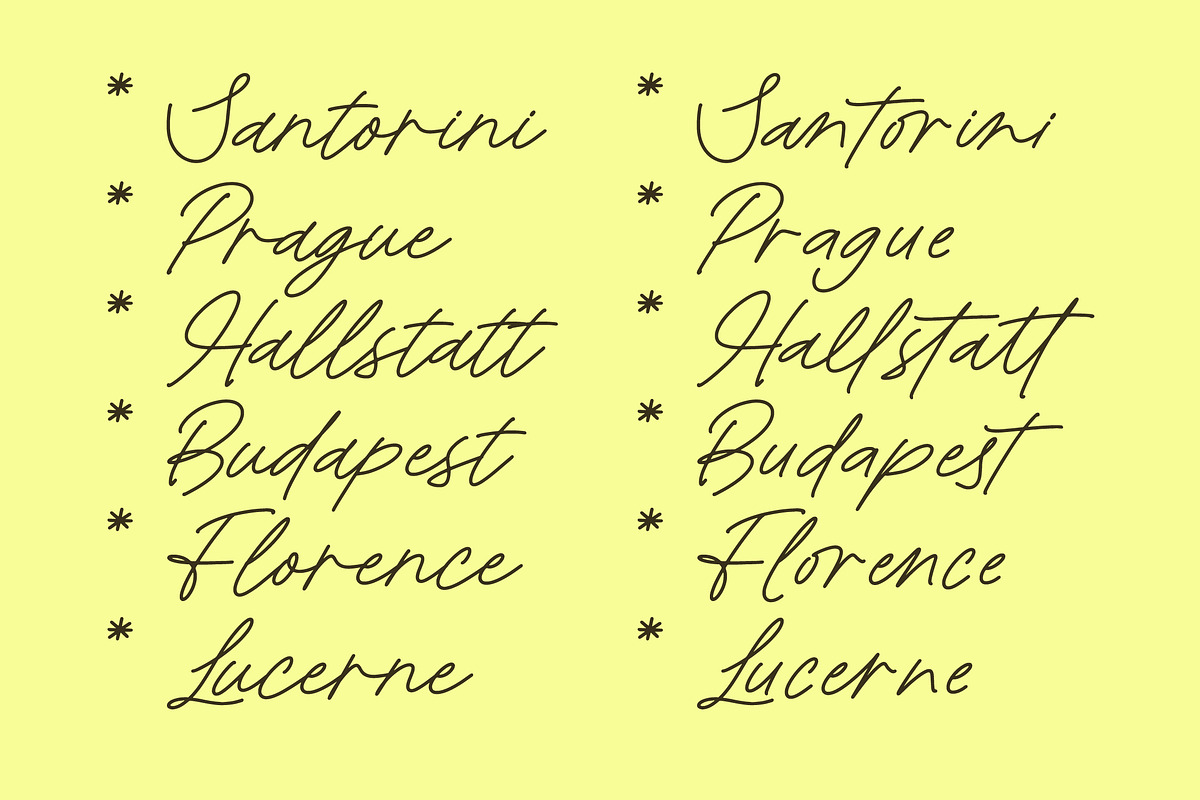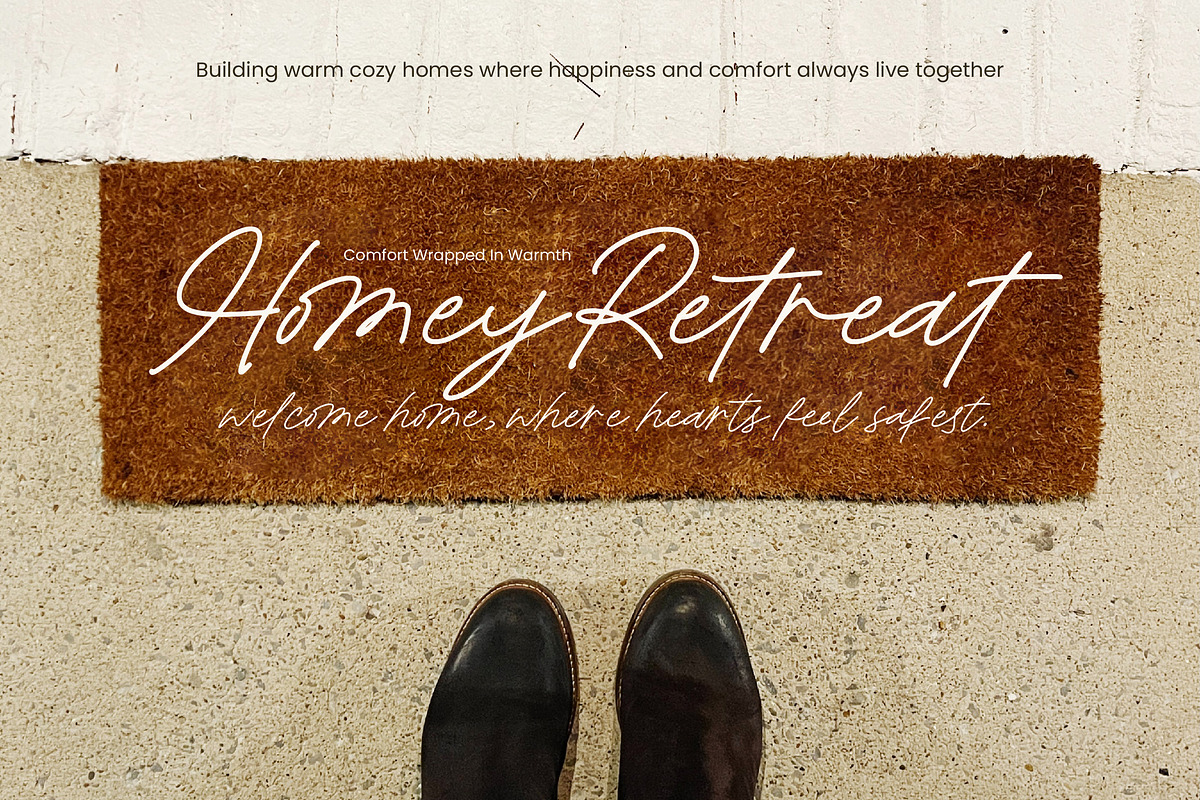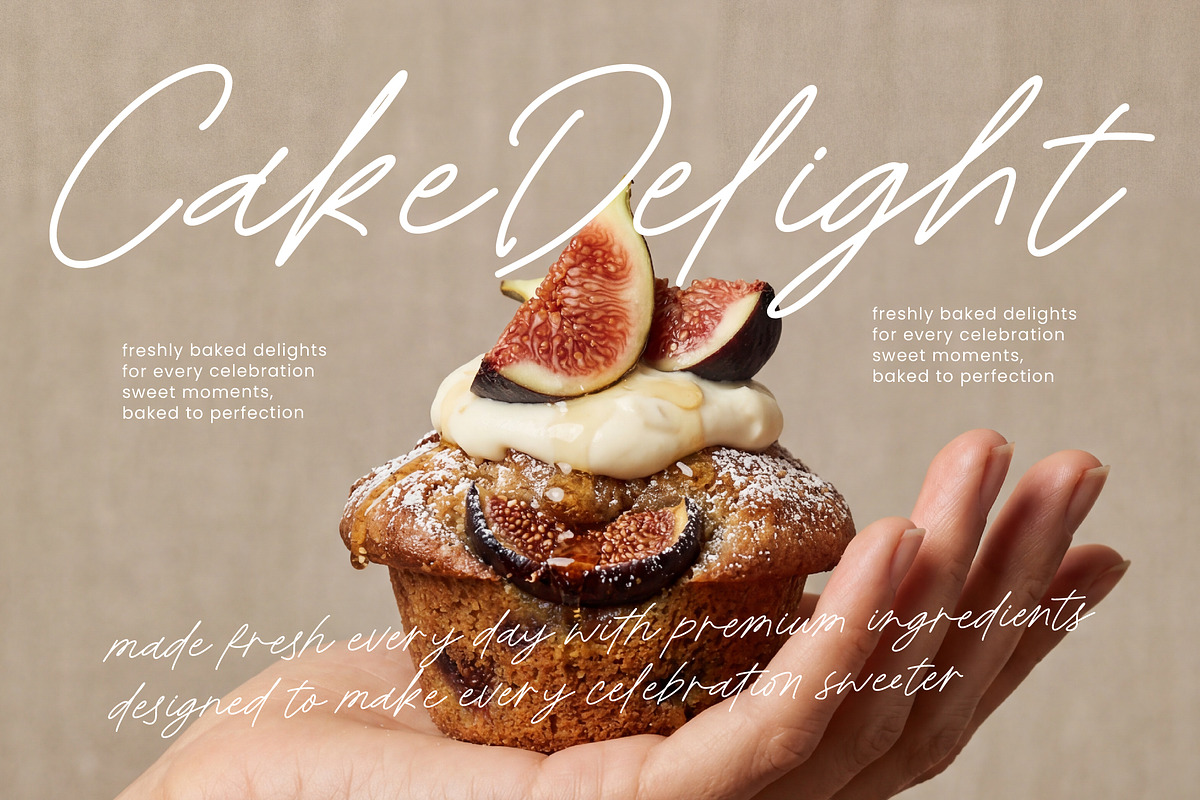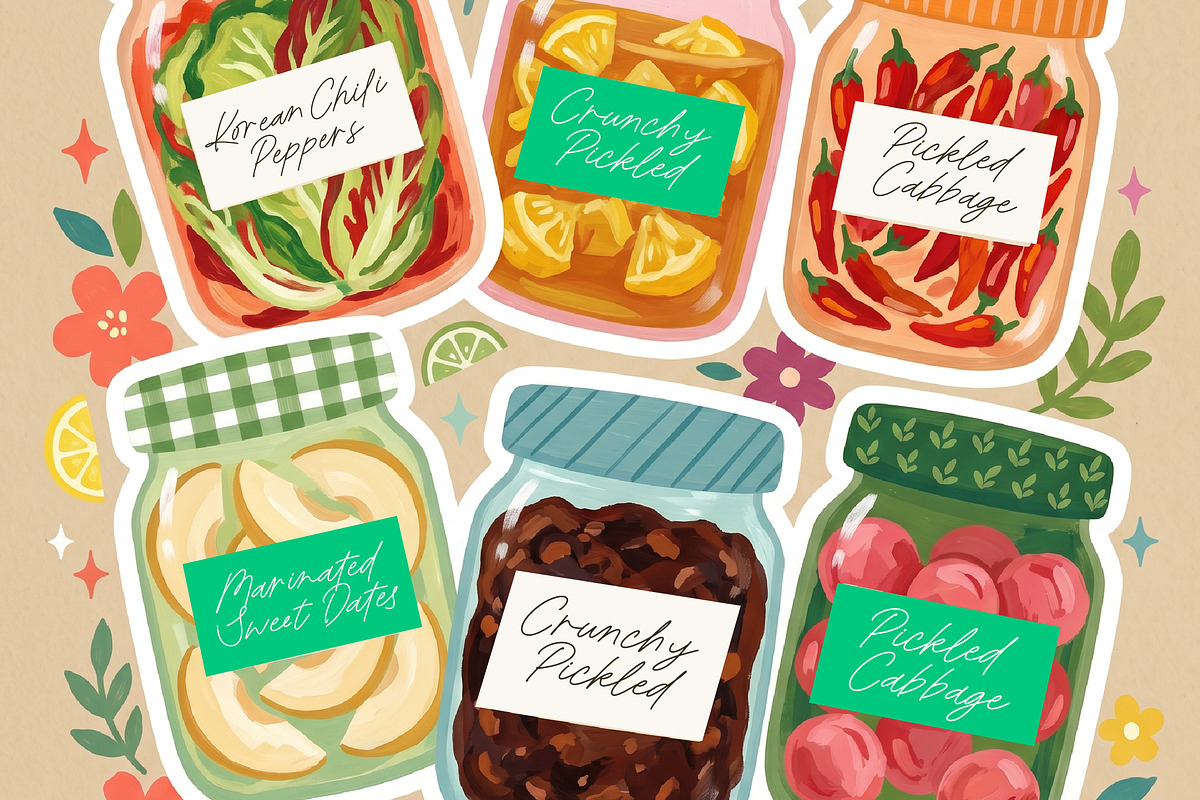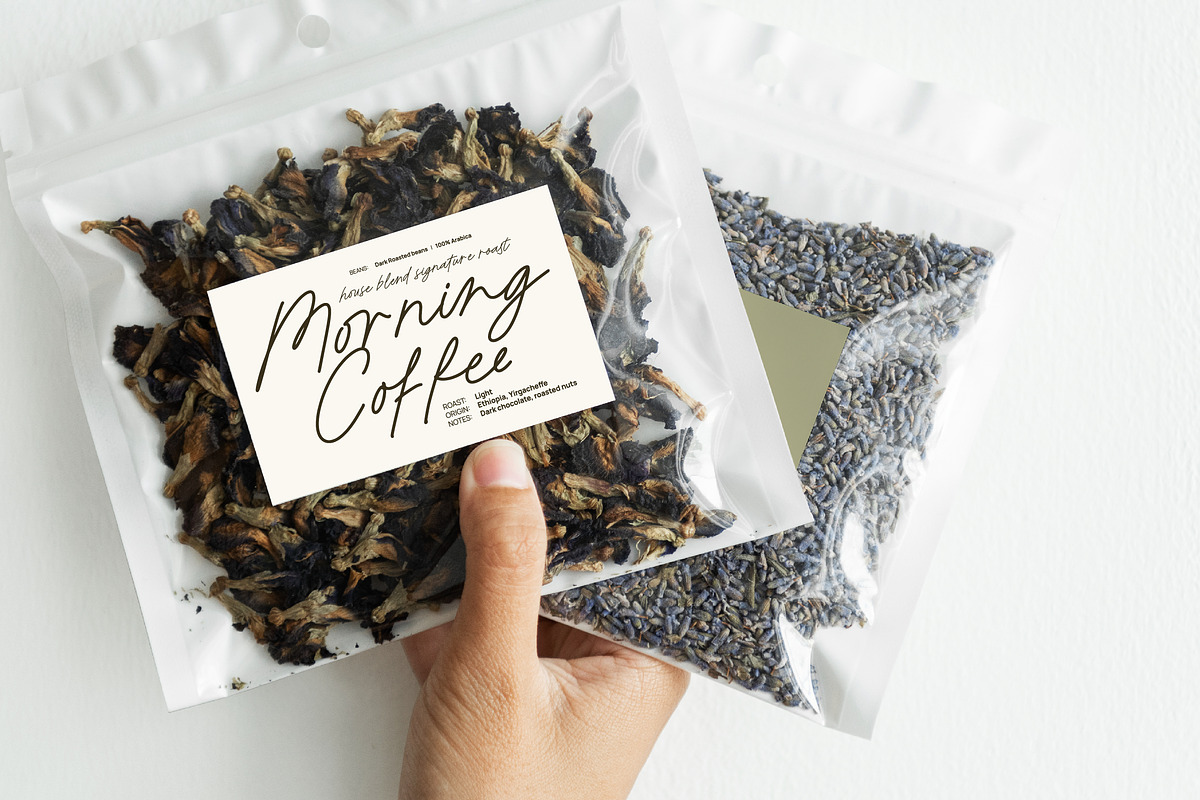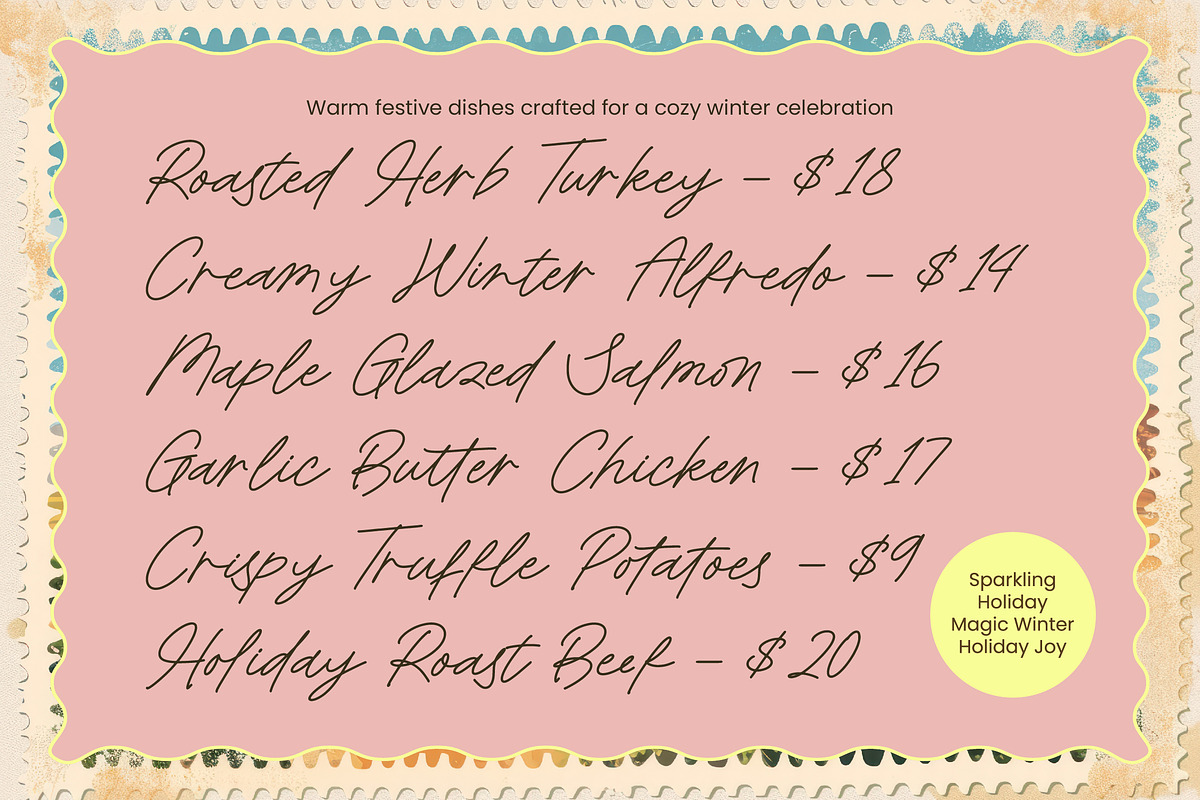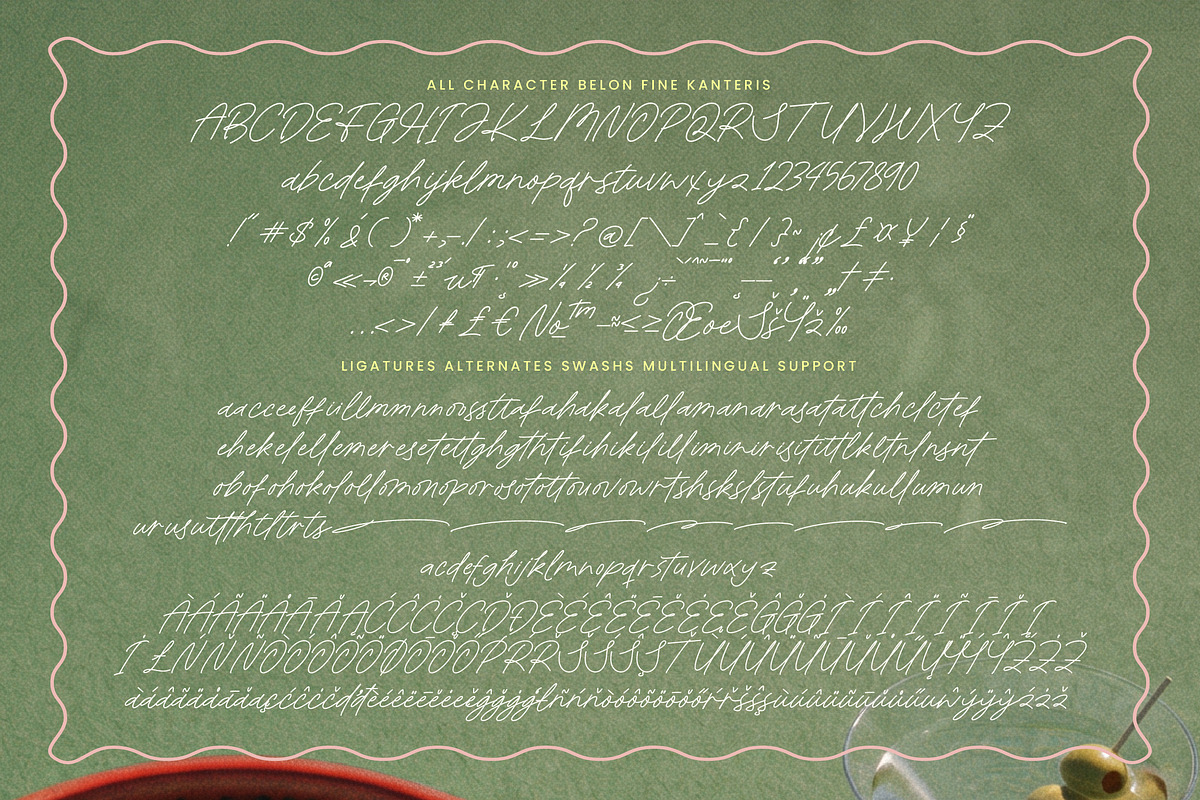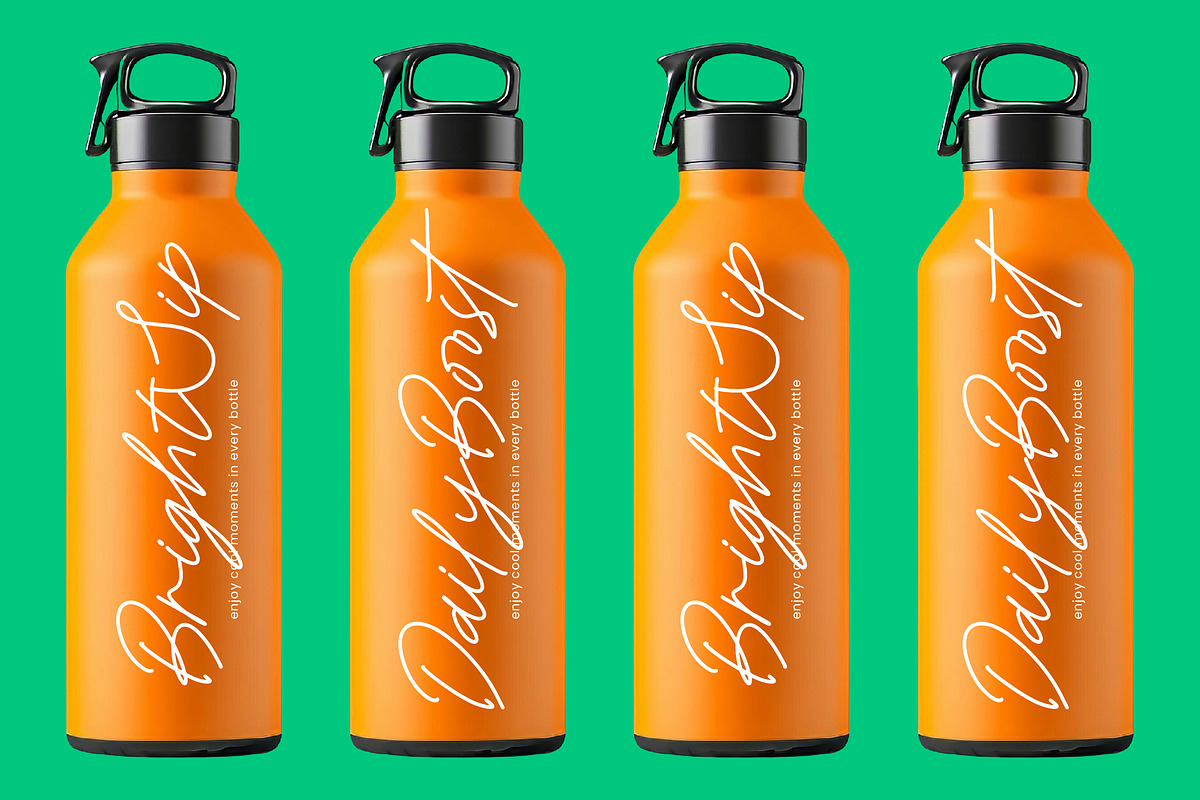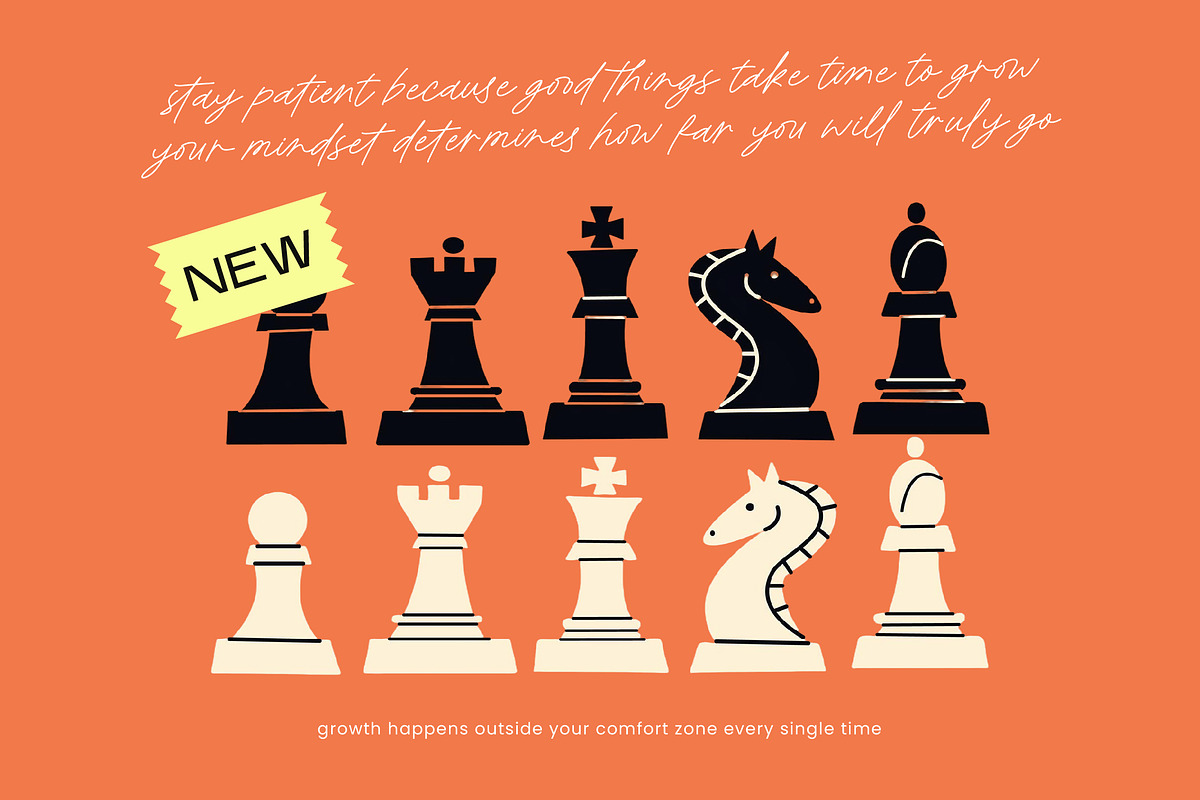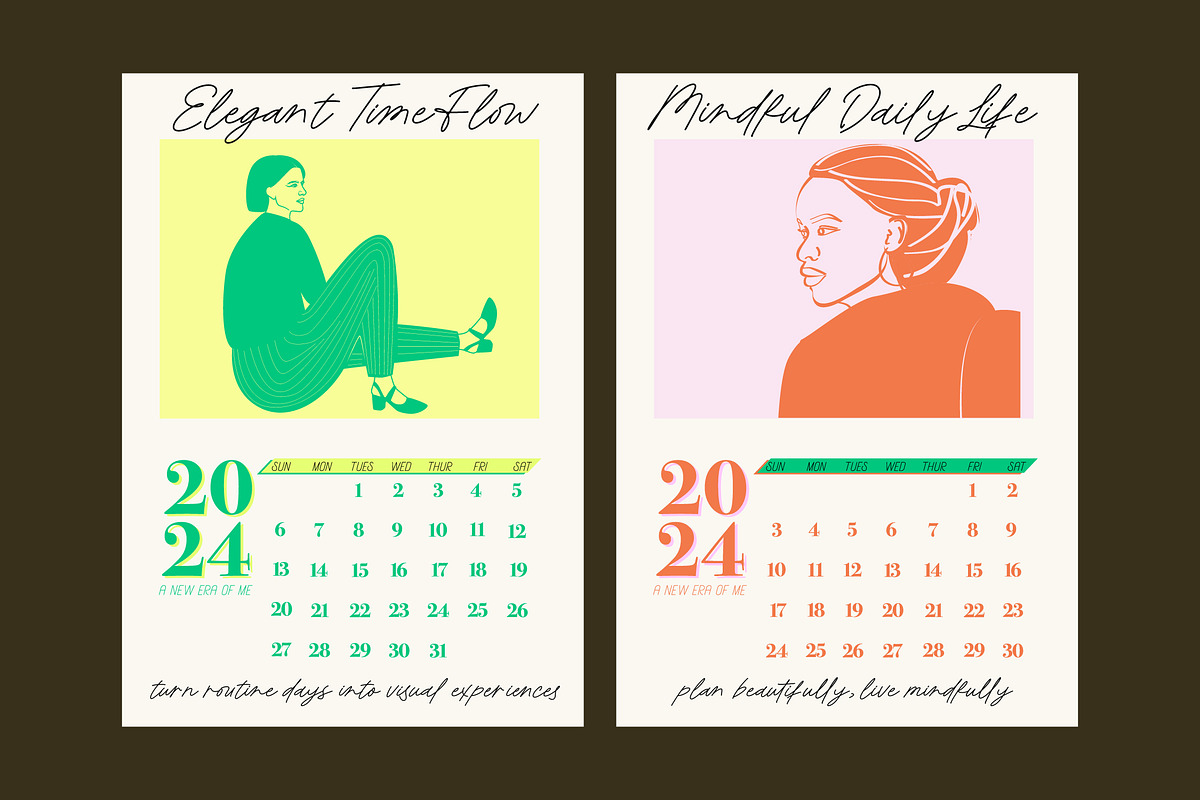
Belon Fine Kanteris Handwritten Font
Belon Fine Kanteris - Monoline Handwritten Font , Elevate your creative vision with a typeface that embodies effortless sophistication. Belon Fine Kanteris - Monoline Handwritten Font offers a unique blend of modern elegance and organic flow. Its consistent line weight creates a monoline aesthetic that feels both personal and polished, perfect for brands wanting to strike a balance between premium quality and authentic connection. The smooth curves and rhythmic strokes of Belon Fine Kanteris - Monoline Handwritten Font ensure that every design feels approachable yet deeply refined.
Discover the perfect typographic partner for high-end projects and lifestyle branding. This typeface is an ideal solution for luxury branding, editorial design, and bespoke stationery. Whether it is used for fashion lookbooks, wedding invitations, or premium packaging, Belon Fine Kanteris - Monoline Handwritten Font adds a signature touch that resonates with luxury. It is perfect for social media graphics, travel blogs, and upscale restaurant menus where a hand-crafted personality is essential to the brand identity.
Experience unparalleled versatility that transcends borders and languages. With its extensive multilingual support, Belon Fine Kanteris - Monoline Handwritten Font adapts seamlessly across global markets, making it incredibly versatile for international projects. Featuring a comprehensive library of 459 glyphs, including 35 alternates and 40 ligatures, this font provides designers with the creative freedom needed for complex layouts. The technical precision behind Belon Fine Kanteris - Monoline Handwritten Font ensures maximum legibility while maintaining its artistic flair.
Transform your design portfolio with a typeface that captures the essence of pure style. By choosing Belon Fine Kanteris - Monoline Handwritten Font, you are investing in a timeless asset that enhances visual storytelling. Its fluid transitions and refined letterforms make it a standout choice for anyone seeking a high-impact monoline script. Elevate your next project to professional heights by incorporating the distinctive charm and commercial appeal of Belon Fine Kanteris - Monoline Handwritten Font.